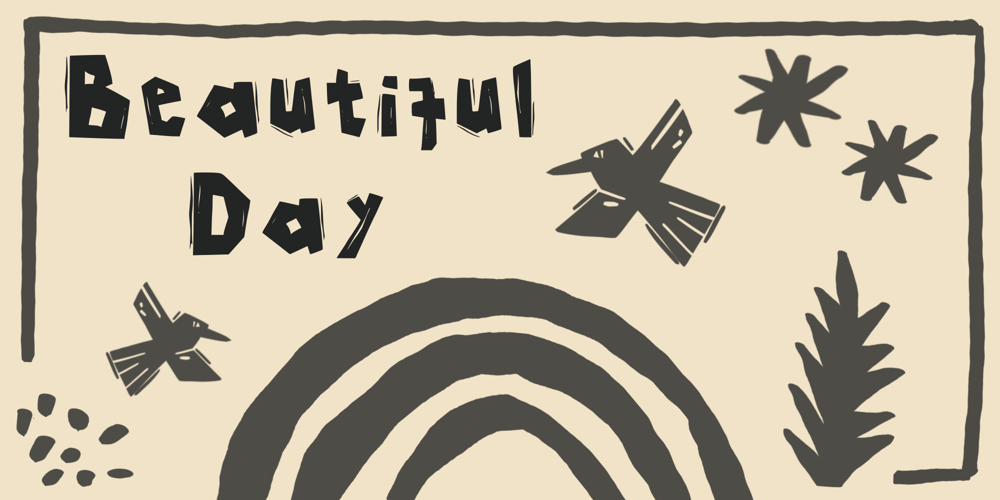
Cordel Interior Font Family was designed by Anacelly Oliveira and published by Ana Cordel Interior Font. Cordel Interior contains 2 styles and family package options. Cordel Interior family draws inspiration from covers of ‘cordel literature’, – small booklets of popular story-poems that played an essential role on the folk-popular cultural life of Brazil. Printed in coarse paper, usually with an woodcut illustration and lettering in the front, these booklets were sold on the streets, in marketplaces and town squares, hung in a cord – therefore the name ‘cordel’.